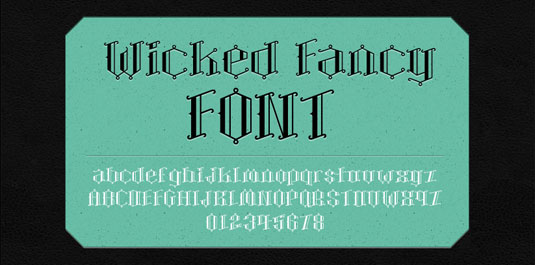
Open Hand Type: Two fonts for a follow!
Designer Kyle Lambert is feeling generous this festive season and has decided to give away two fonts for the price of a Twitter follow.
Kyle Lambert is a Greensboro based graphic and web designer. He owns creative studio Callout Creative as well as working as the Co-founder at Sunday Best Websites. Earlier this year, he set up Open Hand Type - a name your own price font shop.
Two fonts
You can choose from two fonts; the Kick Thunder font or the Wicked Fancy font. Kick Thunder is a fun, quirky and hand crafted font. It works great for headlines, comics and callouts. Wicked Fancy is an intense, fancy, black letter font that will rock your socks off. It is works gloriously for headlines, posters, and illustrations!